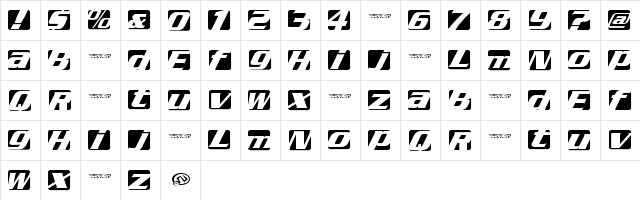
Regal box Regular
| Foundry | Chris Brown (visual design) |
| Designer | Chris Brown |
Design Context for Regal box Typeface
Regal box is a composed and adaptable typeface that performs quietly and consistently across a wide range of design contexts.